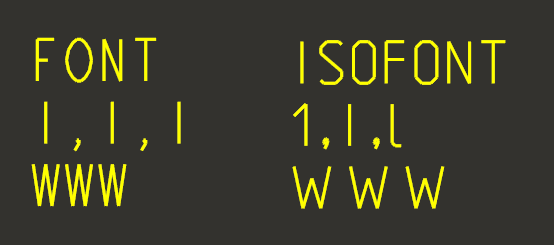
Process to edit fonts
We currently use FONT on our drawings and we have an issue with the 1, I(i) and lowercase L being visually in indistinguishable. So we are looking to use ISOFONT instead, however this has an issue with the spacing of some letters.
So I would like to edit the ISOFONT to reduce the spacing between certain characters, I have gotten as far as:
1. Create new directory, add decompile_font.exe, isofont.fnt, ucore46.dll & udata46.dll
2. decompile the ISOFONT.fnt using:
decompile_font.exe isofont.fnt newisofont.fnt
3. edit the decompiled NEWISOFONT.fnt
4. recompile NEWISOFONT.fnt TO ISOFONT.fnt using:
compile_font.exe newisofont.fnt isofont.fnt
5. Move isofont.fnt into Common Files\x86e_win64\text\usascii
However when I re-launch Creo and try to change some text to the edited ISOFONT I get this error:
Font isofont.ndx.ndx can not be loaded
I presume this is a compiling error as I haven't touched the ndx file, if I understand correctly the ndx file just gathers various fnt files? Can someone shed some light on it please, I haven't been able to find any documentation on how to edit fonts, Im just making it up as I go along.
what does "set COMPILE_FONT_PMT=36" do?
in the past this setting wasd mandatory to get 64-bit version of compiled font.
I compiled Creo fonts in the past.
1.]
In Creo 5.0 installation I can find isofont.fnt file in Common Files\x86e_win64\text\usascii directory
2.]
In Creo 5.0 installation I can find isofont.src file in Common Files\text\usascii directory.
This means you do not need to run decompile_font.exe
3.]
In Creo 5.0 installation I can find isofont.ndx file in Common Files\text\usascii directory.
It contains 3 rows:
isofont.fnt
special.fnt
latin_1.fnt
4.]
To compile modified src-file I used following commands in Command Prompt window:
set COMPILE_FONT_PMT=36
compile_font.exe   isofont.src   isofont.fnt
what does "set COMPILE_FONT_PMT=36" do?
@khimani_mohiki wrote:
what does "set COMPILE_FONT_PMT=36" do?
in the past this setting wasd mandatory to get 64-bit version of compiled font.